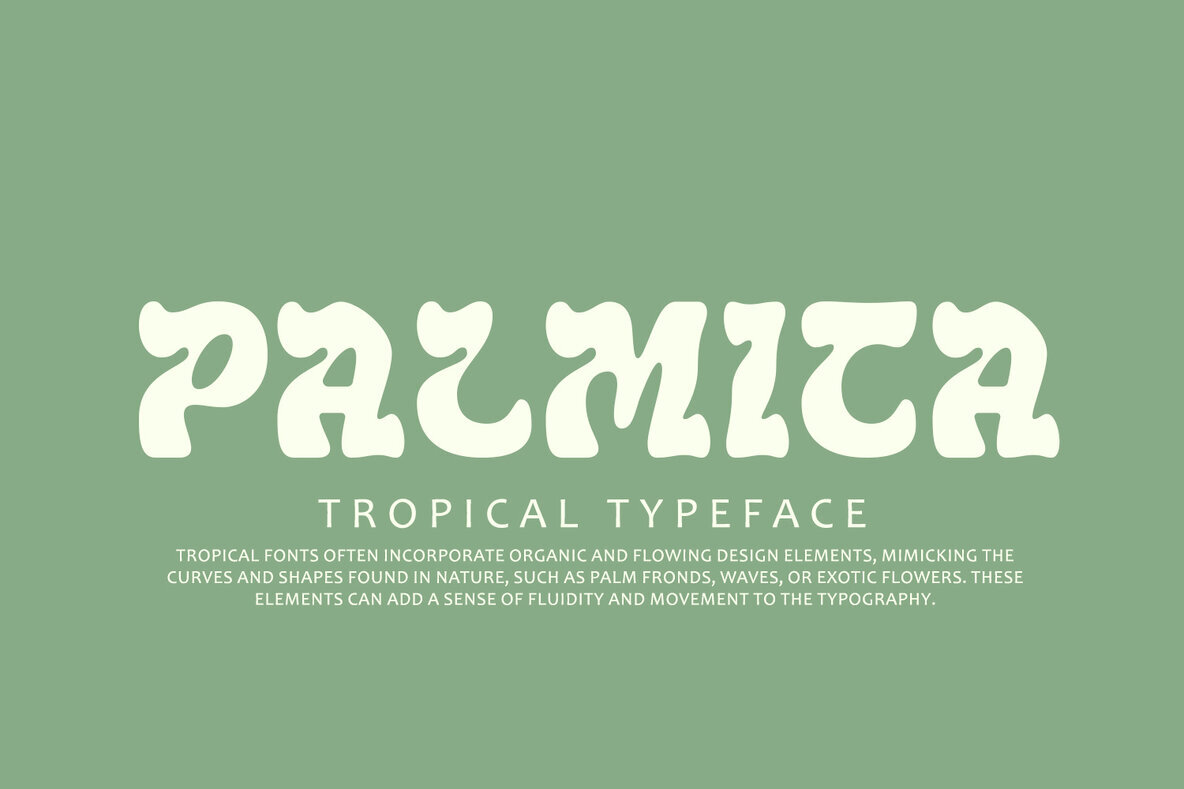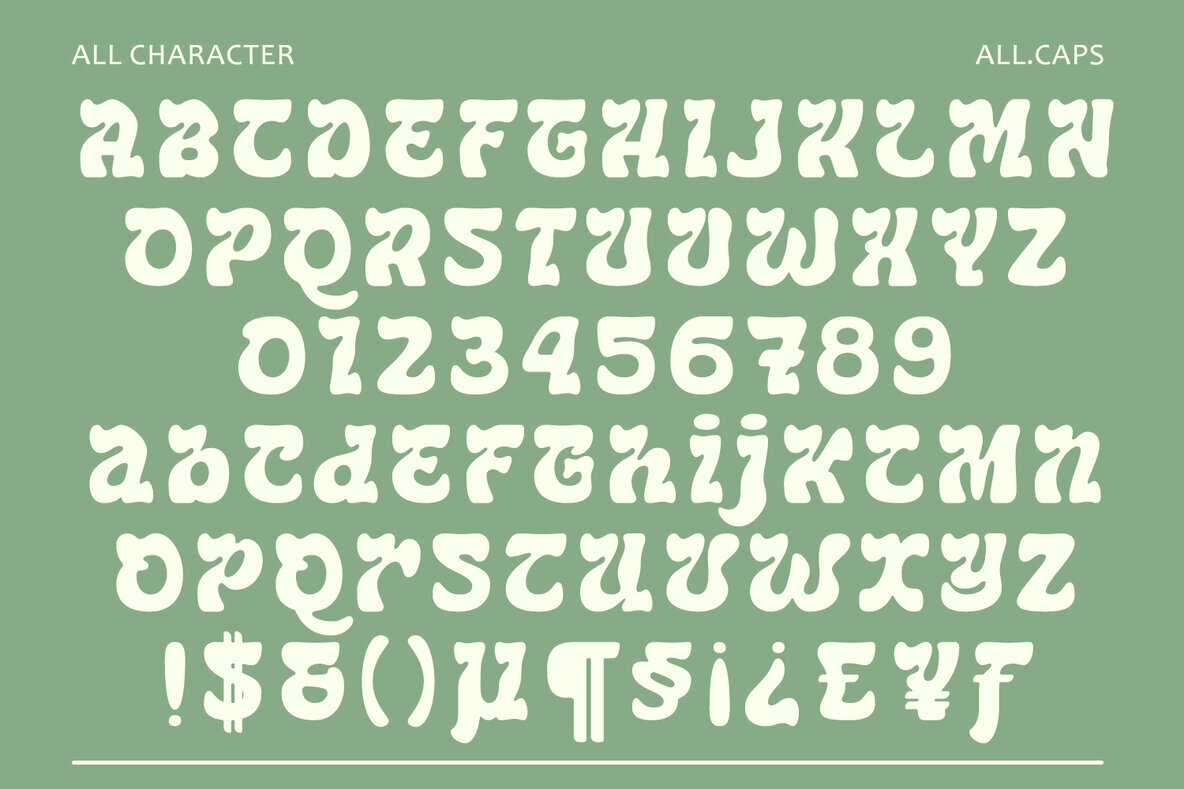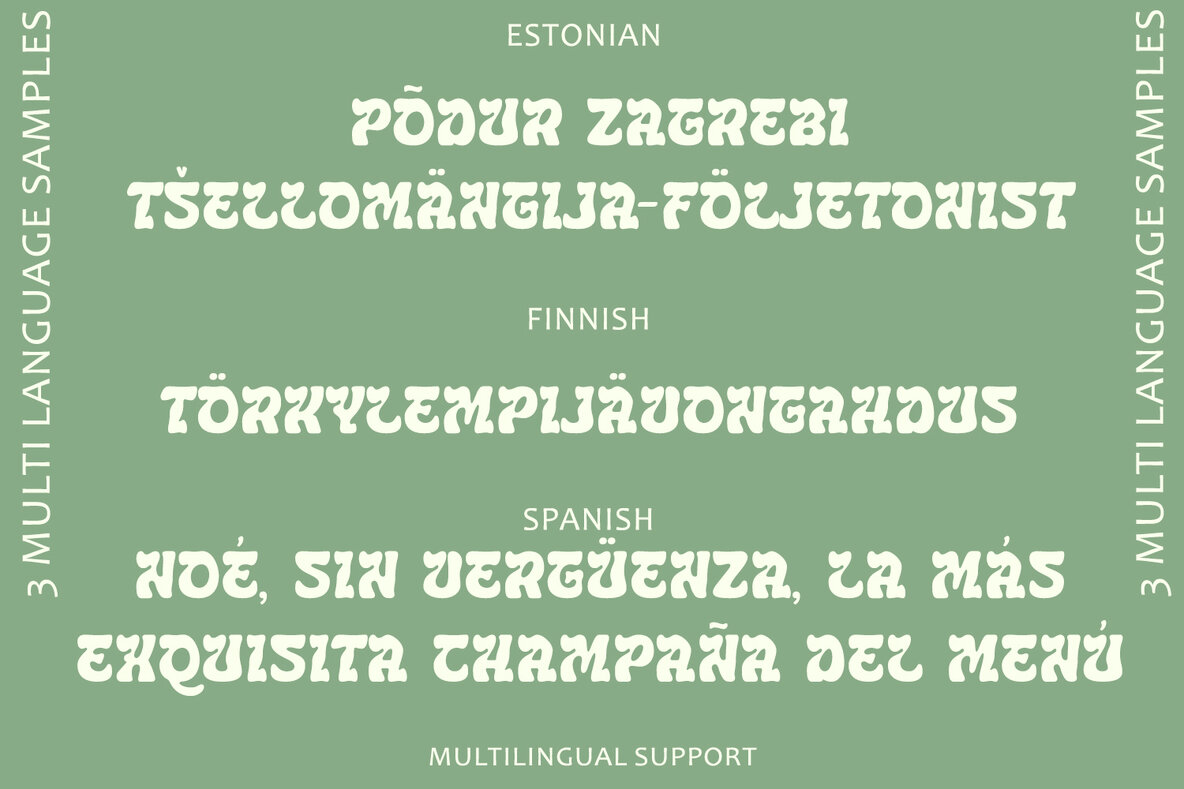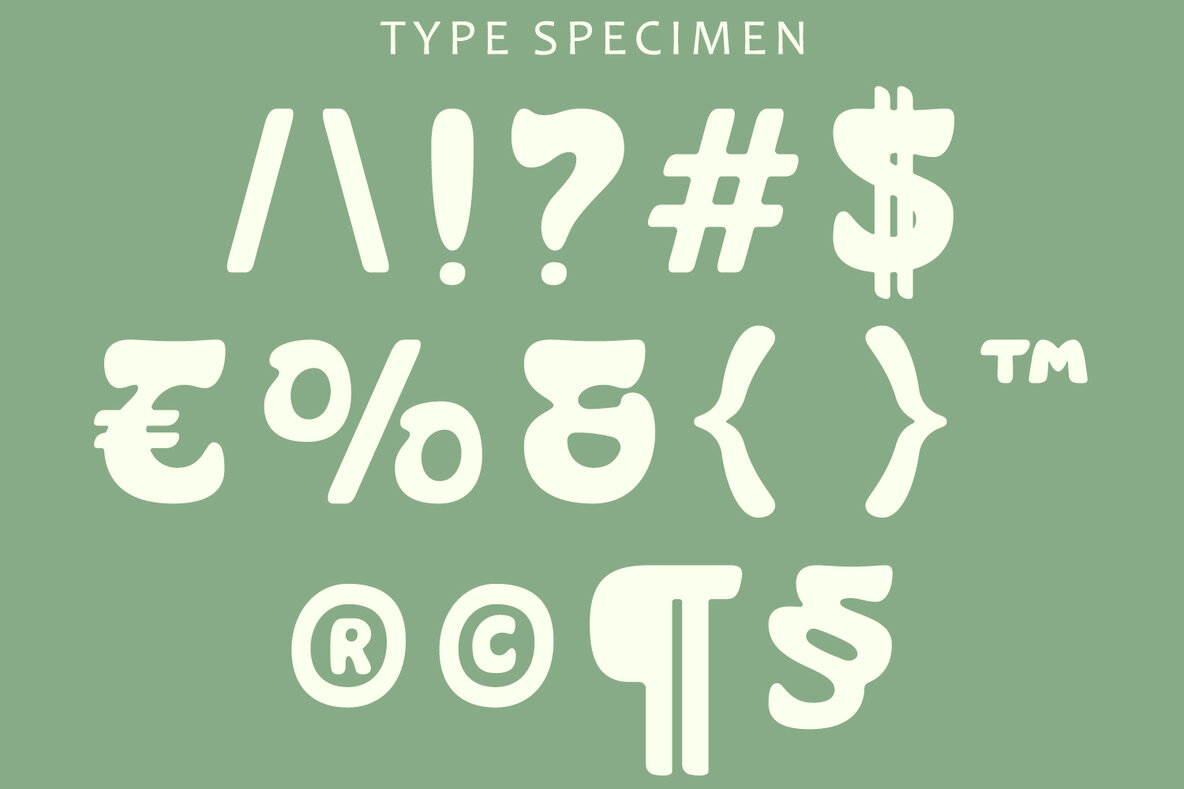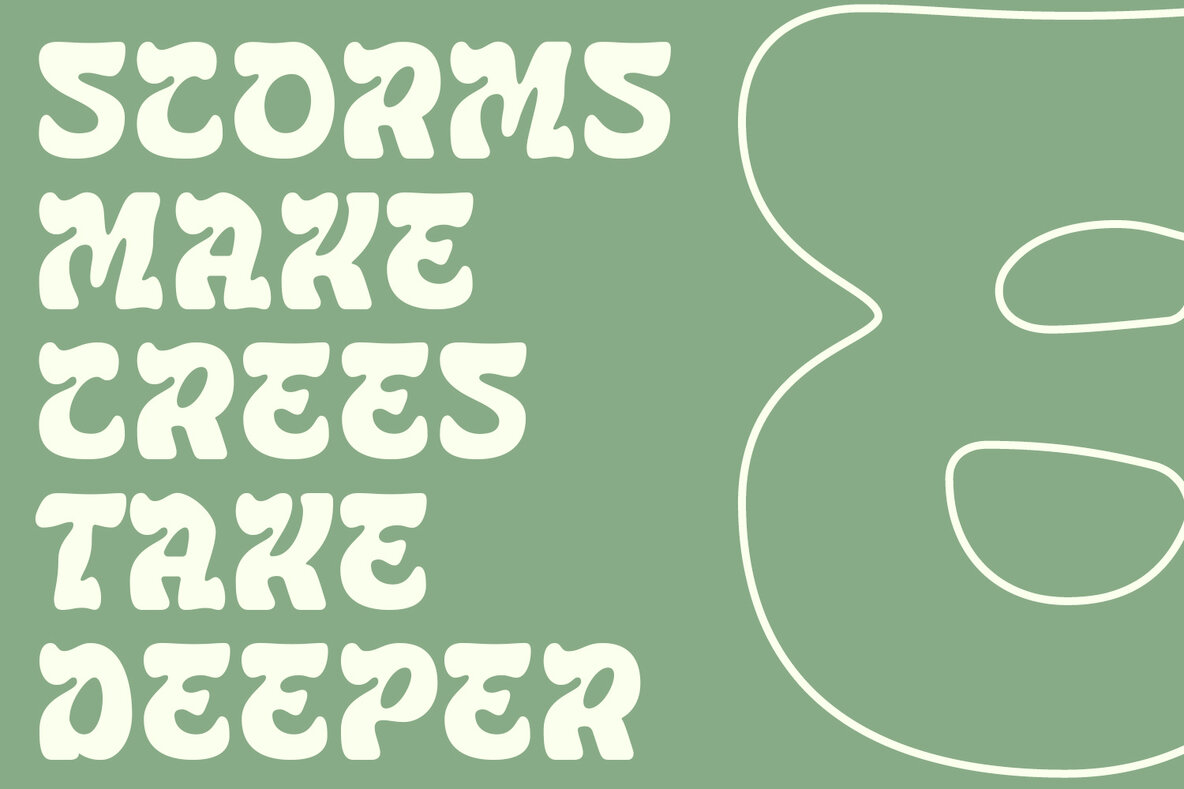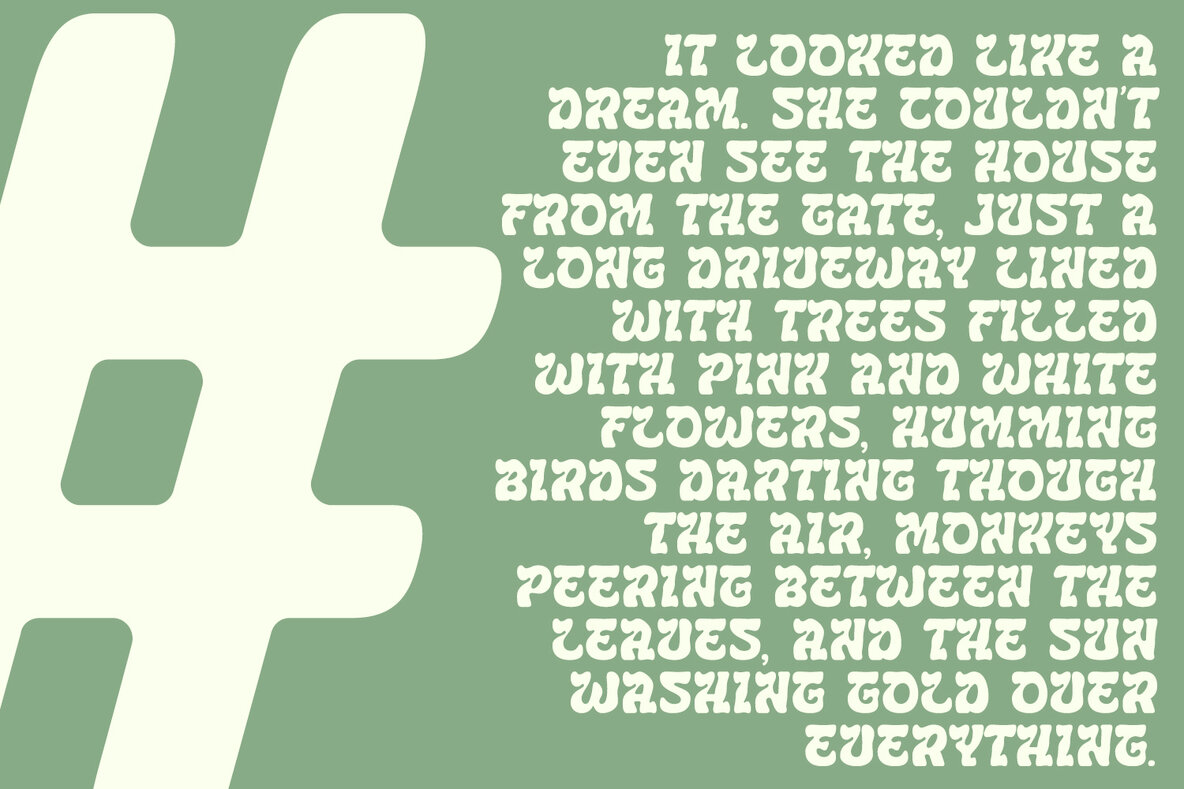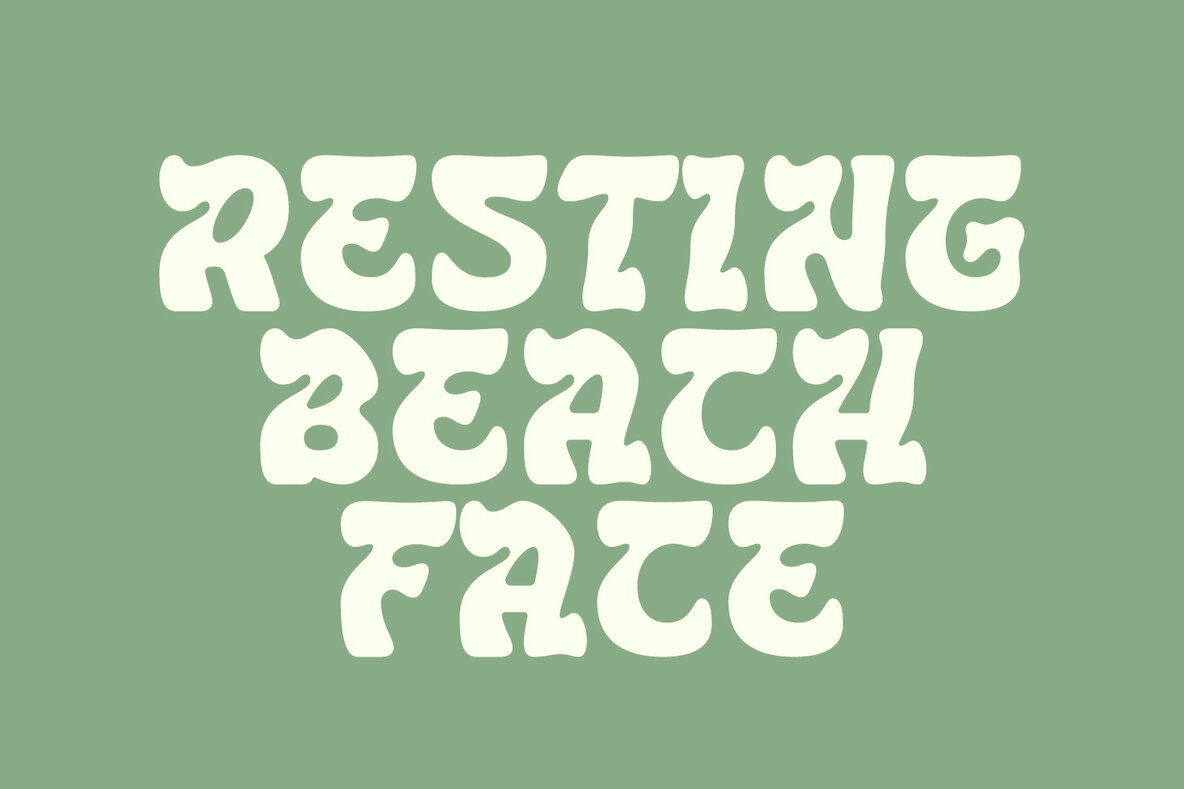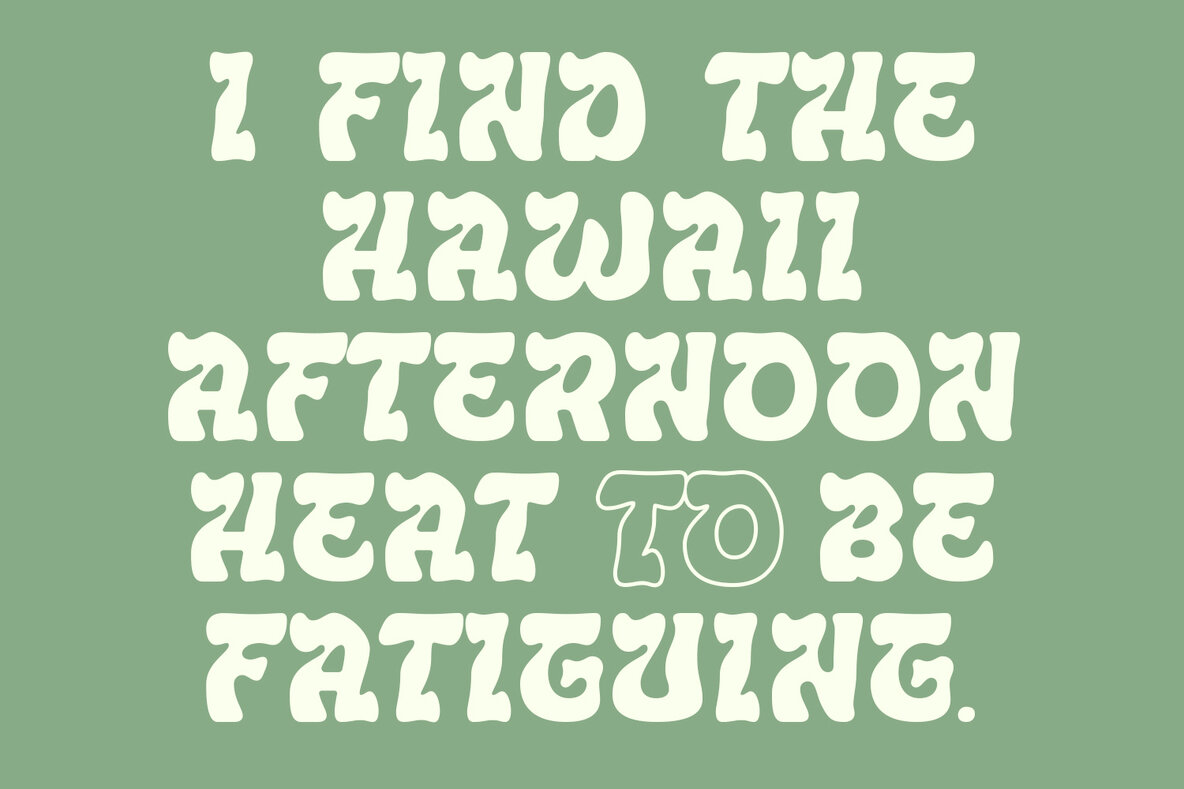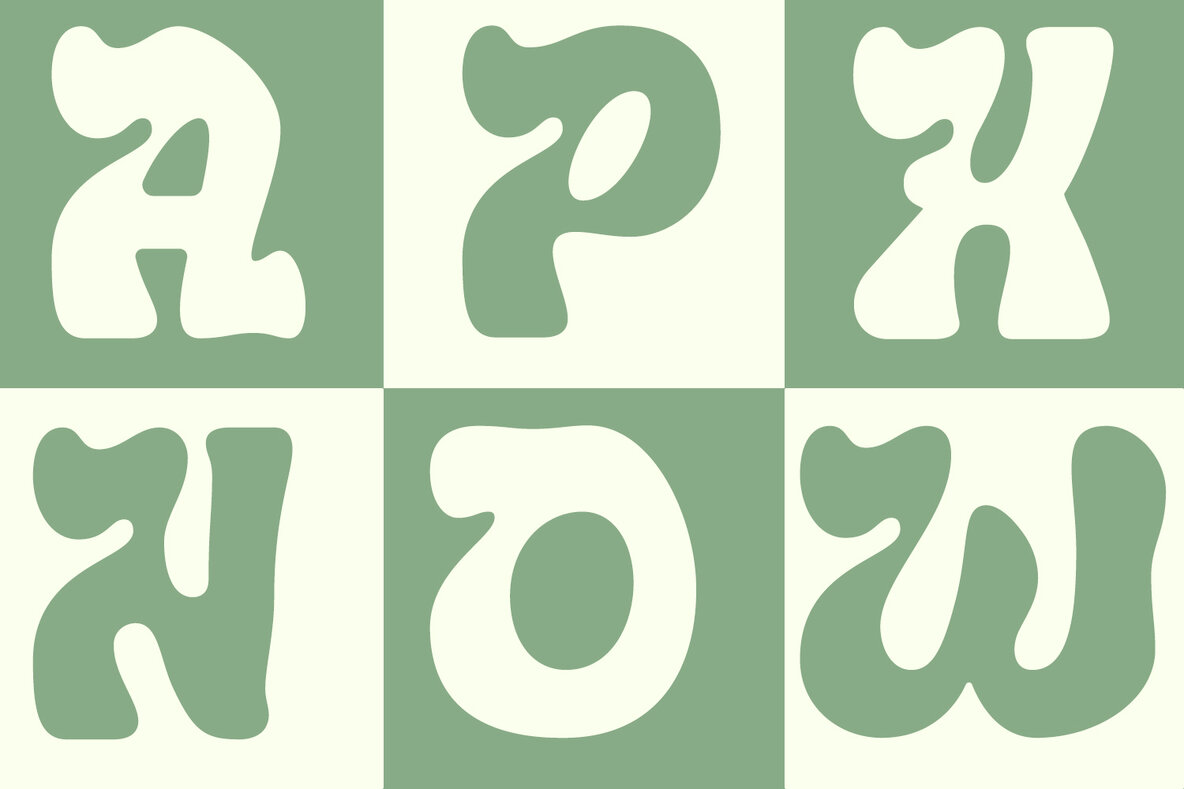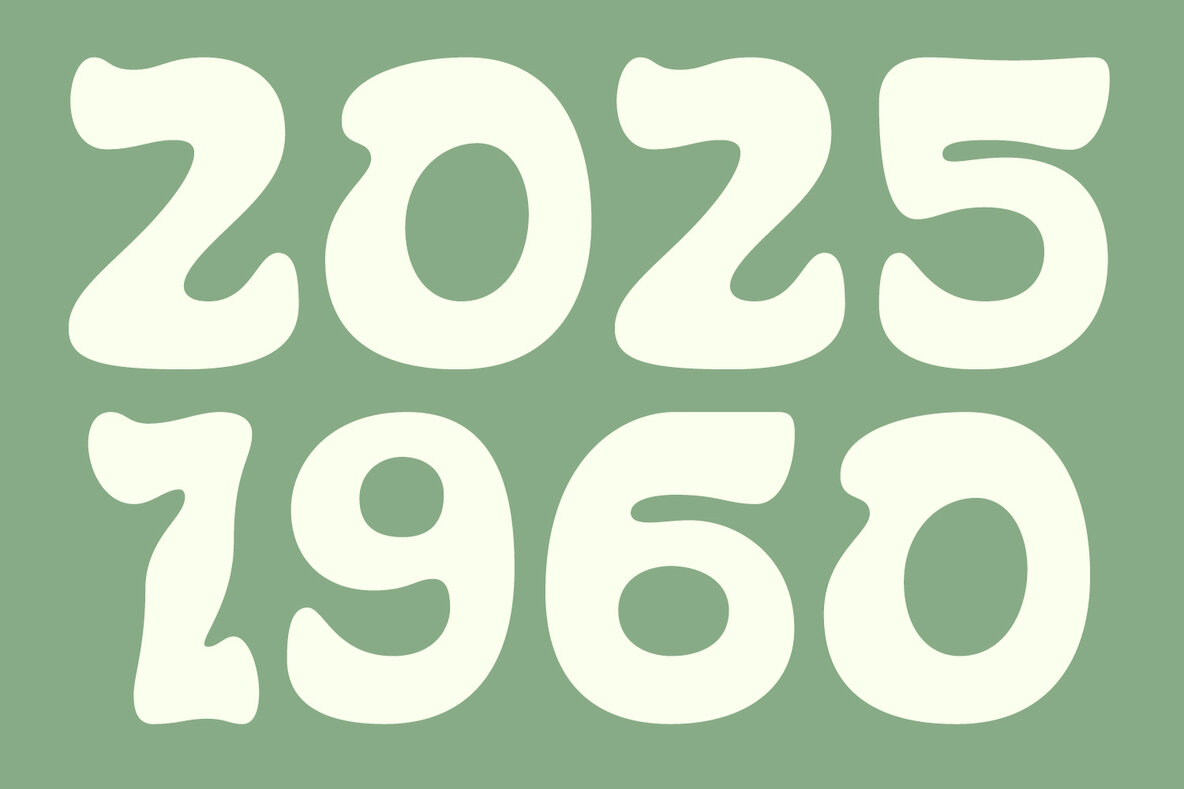
Palmica
Palmica is a tropical-inspired font that captures the essence of sun-drenched beaches and swaying palm trees. With a seamless blend of fluidity and elegance, Palmica offers a versatile look suitable for both casual and professional projects. Hand-drawn elements give it an organic, personal touch, while the smooth, flowing curves reflect the natural beauty of tropical flora.
Palmica comes packed with features that make it ideal for various design applications, including branding, logos, apparel, invitations, and social media graphics. It provides multiple weights to accommodate everything from bold headlines to delicate body text. Palmica also includes decorative accents such as tropical-themed glyphs and ligatures, like palm fronds and floral details, enhancing your design projects.
The font supports uppercase and lowercase characters, numerals, and punctuation adhering to OpenType standards. It also accommodates multilingual characters with accents and offers a stylistic set through PUA encoding. Bringing a balanced mix of sophistication and playfulness, Palmica is perfect for projects that aim to transport the audience to a tropical paradise, whether you're working on beachwear branding, tropical-themed events, or island-inspired cafe graphics.